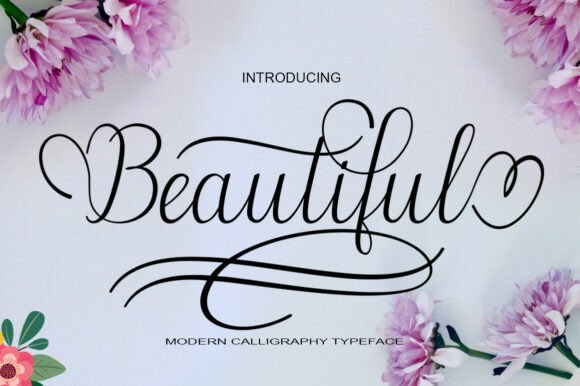
Introducing Beautiful Script: A Fresh and Modern Font with Handmade Calligraphy
In the world of typography, a beautiful font can make all the difference in creating stunning visual content. If you’re a designer, craftsperson, or simply someone who appreciates the art of beautiful writing, you’re in luck. Beautiful Script is a new, fresh, and modern font that embodies the elegance of handmade calligraphy, decorative characters, and dancing lineages. This gorgeous font is perfect for creating invitations, greeting cards, branding materials, business cards, quotes, posters, and more.
What Makes Beautiful Script So Special?
Beautiful Script is more than just a font – it’s an artistic experience. With 883 glyphs at your disposal, you’ll have endless possibilities to create unique and captivating designs. The font features alternate characters, divided into several Open Type features, including Swash, Stylistic Sets, Stylistic Alternate, and Contextual Alternate. These features can be accessed using Open Type savvy programs such as Adobe Illustrator, Adobe InDesign, Adobe Photoshop, Corel Draw X versions, and Microsoft Word.
Unlocking the Full Potential of Beautiful Script
One of the most exciting aspects of Beautiful Script is its code PUA (Private Use Area) Unicode. This means that all alternative characters can be easily accessed by craftsmen or designers, giving you complete control over your creative process. The font also includes uppercase and lowercase letters, international signature and symbol punctuation, and support for PUA number Unicode.
Key Features of Beautiful Script
- Fresh and modern handmade calligraphy style
- Decorative characters and dancing lineages
- 883 glyphs, including alternate characters
- Open Type features: Swash, Stylistic Sets, Stylistic Alternate, Contextual Alternate
- PUA Unicode code for easy access to alternative characters
- Uppercase and lowercase letters
- International signature and symbol punctuation
- Support for PUA number Unicode
- Style alternative and contextual character variations (1-26)
Beautiful Script is the perfect addition to any designer’s or craftsperson’s toolkit. With its fresh and modern style, this font can be used to create a wide range of visual content, from elegant invitations and greeting cards to eye-catching posters and branding materials. Whether you’re looking to add a touch of sophistication or whimsy to your designs, Beautiful Script has got you covered.
In conclusion, Beautiful Script is a stunning font that embodies the beauty of handmade calligraphy and modern typography. With its extensive range of glyphs, Open Type features, and PUA Unicode code, this font offers endless creative possibilities for designers and craftspersons. Whether you’re a seasoned pro or just starting out, Beautiful Script is sure to inspire your next design project.